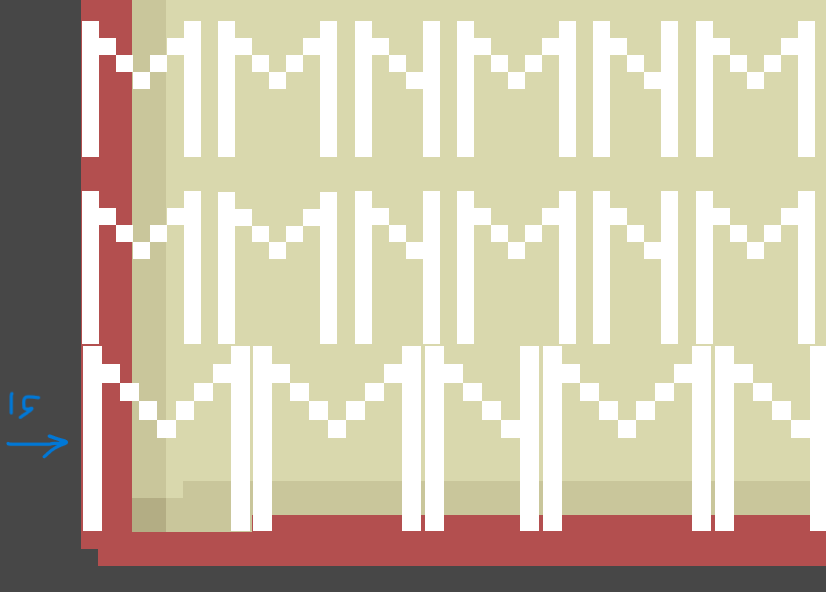
I’ve been working with Unity and TextMesh Pro for a while and everything has been working smoothly. However, I have recently made a variety of pixel art fonts (6, 8, 9, 10, 12, 13, 15px) so I can have a good amount of flexibility when designing UI (using BitFontMaker2™ BitMap Font Editor). Most of them look fine and are pixel perfect. However, the 6px, 9px, and 15px fonts are not perfectly aligned to the pixel grid.
In game:
Default Text Component vs TMP Text Component:
I have tried a lot of things in an attempt to fix this issue, but none have worked. I’ve tried rebuilding the fonts, changing the settings the the Font Asset Creator, changing the import settings; all to no effect. This has really put a damper on my workflow because some of the buggy font sizes are the only sizes that would look good where I need them. Any help or advice would be appreciated.